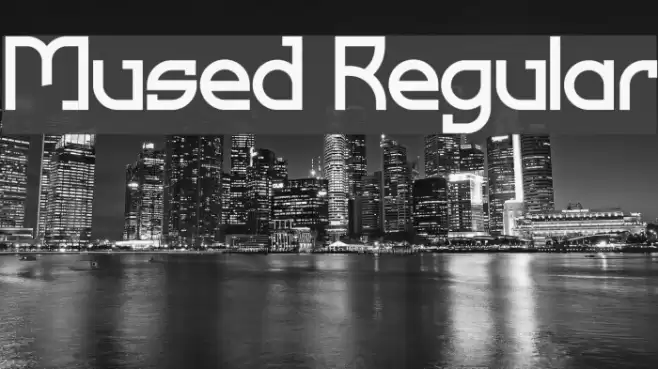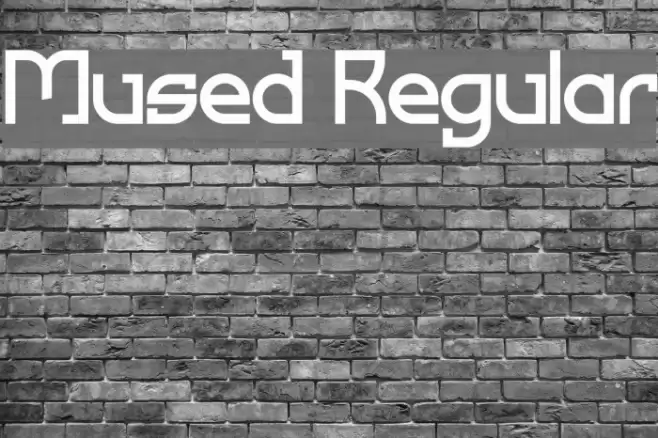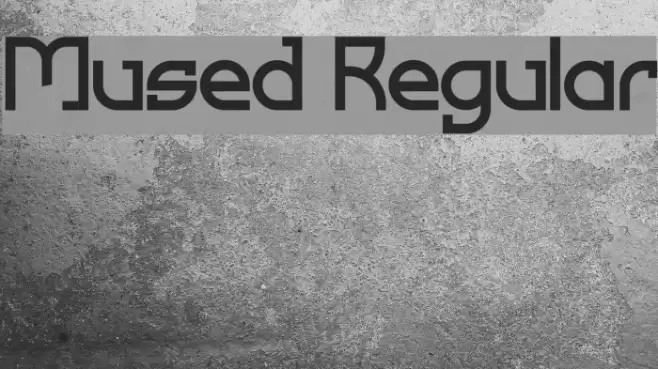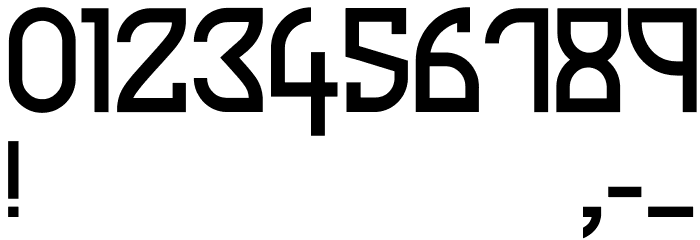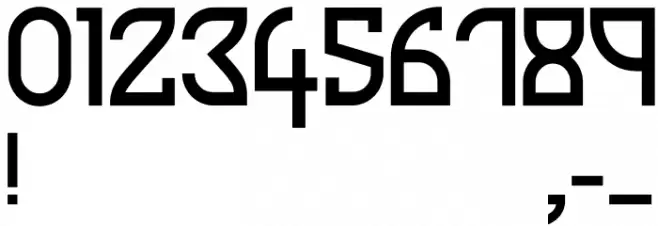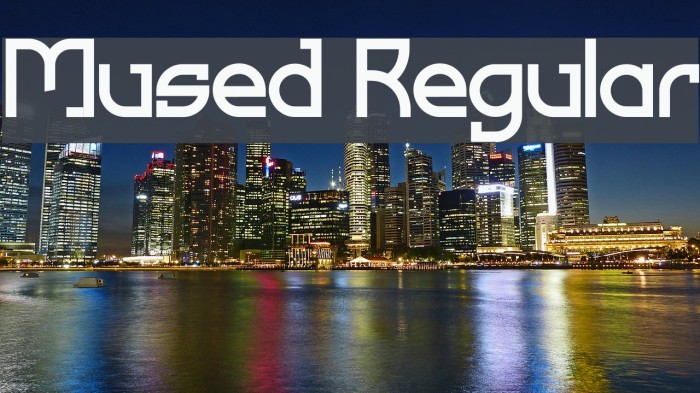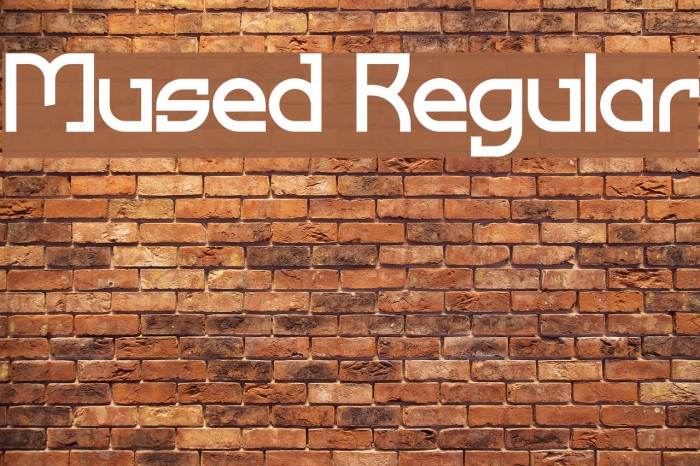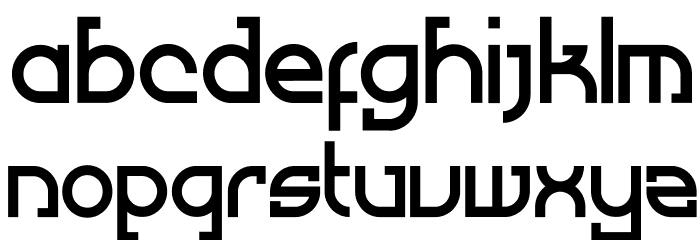
Mused Regular Font
Mused Regular Description
This font features a modern, geometric design with a unique blend of curves and sharp angles. The uppercase letters are bold and structured, with a futuristic aesthetic that is both eye-catching and readable. The lowercase letters maintain the geometric theme, offering a consistent look across different text sizes. Numbers are distinct and clear, making them ideal for both display and functional purposes. Special characters are designed to complement the overall style, ensuring a cohesive appearance. The font's clean lines and balanced proportions make it suitable for a variety of design applications.
A modern, geometric font with bold, structured letters and a futuristic aesthetic from Uncategorized fonts.
- Proposed Projects: Ideal for branding, advertising, posters, and digital media projects that require a modern and distinctive look.
- Overall Style: Modern, Geometric